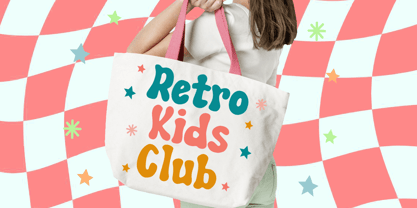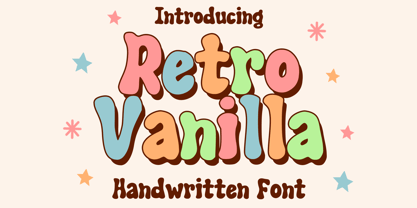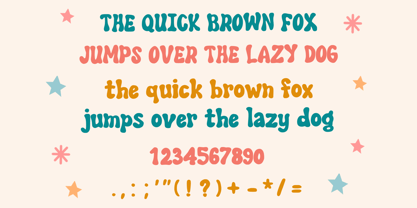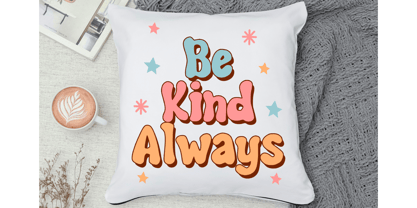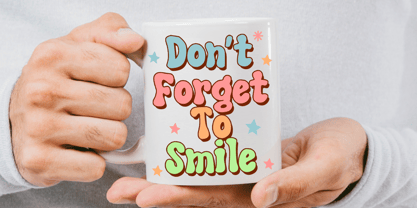
Retro Vanilla
by Mvmet
The Retro Vanilla Font Family was designed by Gabriel Valentinus and published by Mvmet. Retro Vanilla contains 1 styles. More about this family
Introducing Retro Vanilla - a versatile, vintage-inspired display font that exudes playful charm. This font is the ideal choice for adding a spark of fun to t-shirt designs, children's books, greeting cards, stickers, posters, and any project that requires a touch of casual, cheerful elegance. Experience the sheer versatility of its style, allowing you to create design masterpieces that spread joy and laughter. Discover how Retro Vanilla can elevate your creative projects with a hint of nostalgic magic, making it perfect for branding, web design, and editorial use.